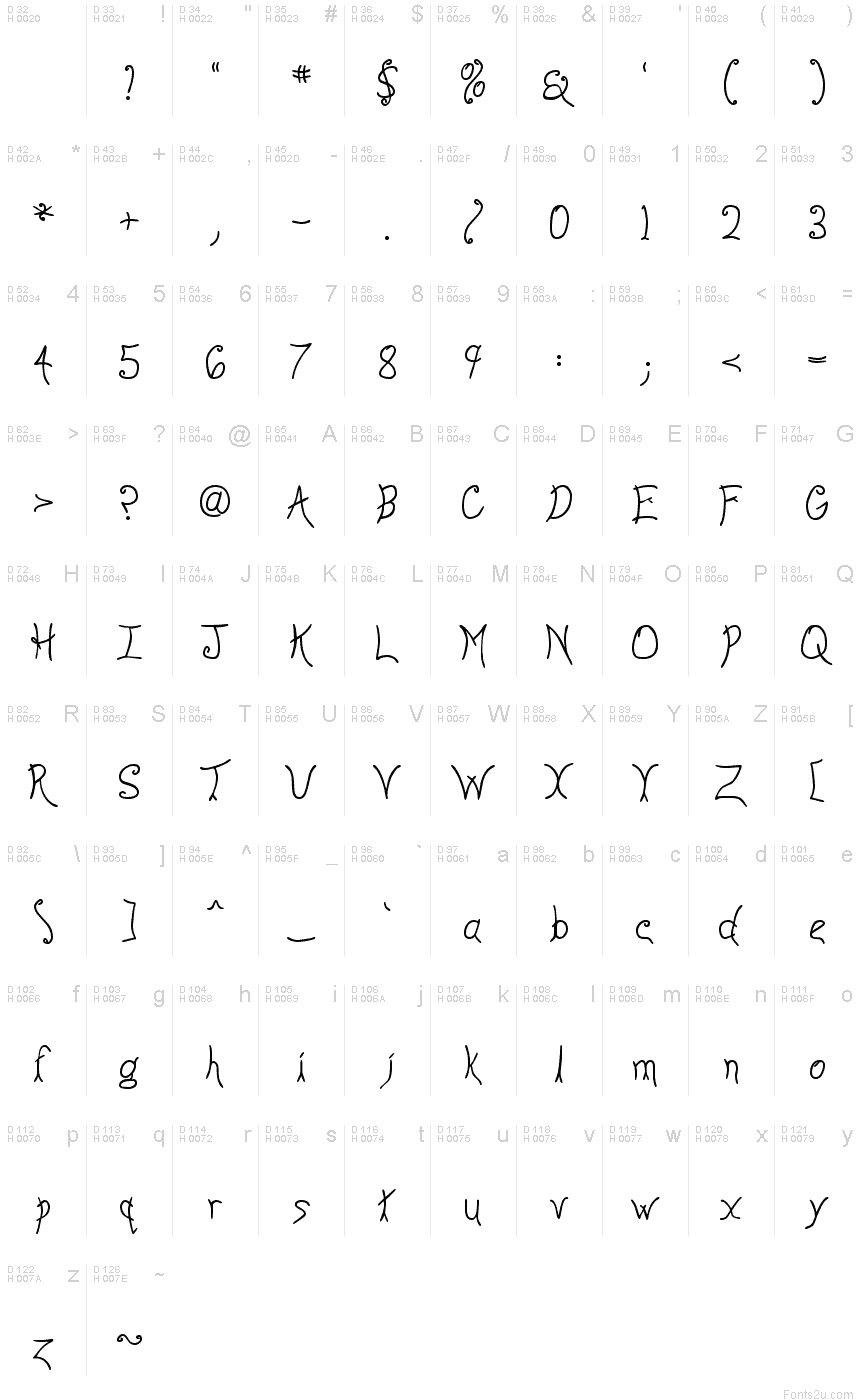
Anyway Light
Anyway Light font by UnAuthorized Type is a free handwritten typeface that captures the feel of quick, confident pen strokes without slipping into messiness. Its tall, slightly leaning letters and smooth, even line weight read like a casual note scribbled in a margin—easygoing, but still clear at a glance. The spacing breathes just enough that words don’t tangle together, solving the usual “cute but unreadable” problem so many script-style fonts have.
Using Anyway Light, you can give headings, quotes, and short notes a relaxed, human touch on posters, social graphics, planner pages, packaging, and friendly onboarding screens. This free font shines when used a bit larger, where the loose rhythm and playful curves can really show. Pair it with a clean sans from the Anyway family or another simple sans serif for body text to keep your layouts balanced and readable.